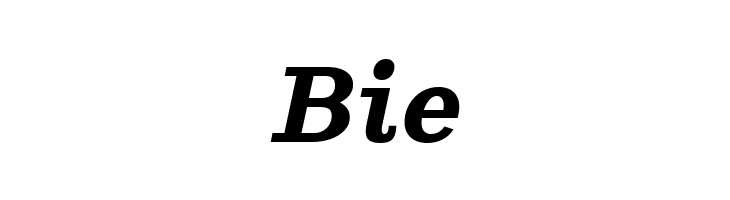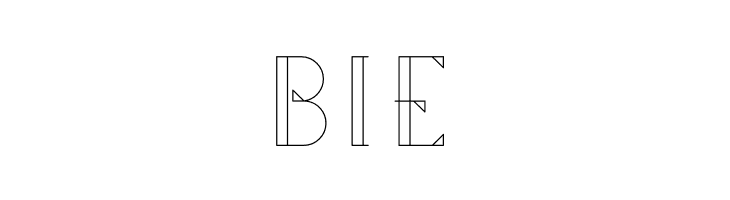
A modern, geometric font with bold uppercase letters and decorative special characters.
( Fonts by Jérémie Dupuis )
A light, italic serif font with medium contrast and elegant style.
( Fonts by Jérémie Dupuis )
A semi-bold, italic serif font with a classic yet modern appeal.
( Fonts by Jérémie Dupuis )
A classic serif font with bold strokes and high contrast, offering a traditional and authoritative appearance.
( Fonts by Jérémie Dupuis )
A modern serif font with clean lines and elegant style.
( Fonts by Jérémie Dupuis )
A semi-light serif font with a modern, elegant style and medium contrast.
( Fonts by Jérémie Dupuis )
A bold, italicized font with strong, dynamic letterforms.
( Fonts by Jérémie Dupuis )
A bold, slab serif font with strong, well-defined characters.
( Fonts by Jérémie Dupuis )
A refined, italic serif font with moderate contrast and elegant curves.
( Fonts by Jérémie Dupuis )
An elegant and classic italic serif font with a sophisticated appeal.
( Fonts by Jérémie Dupuis )
A bold serif font with strong strokes and pronounced serifs, ideal for impactful headlines.